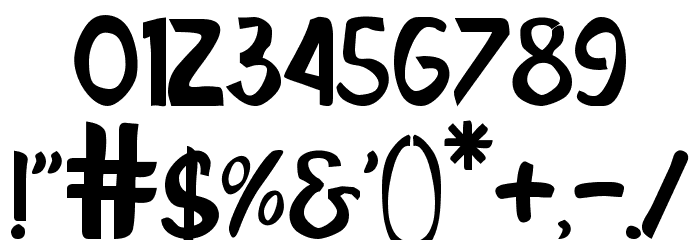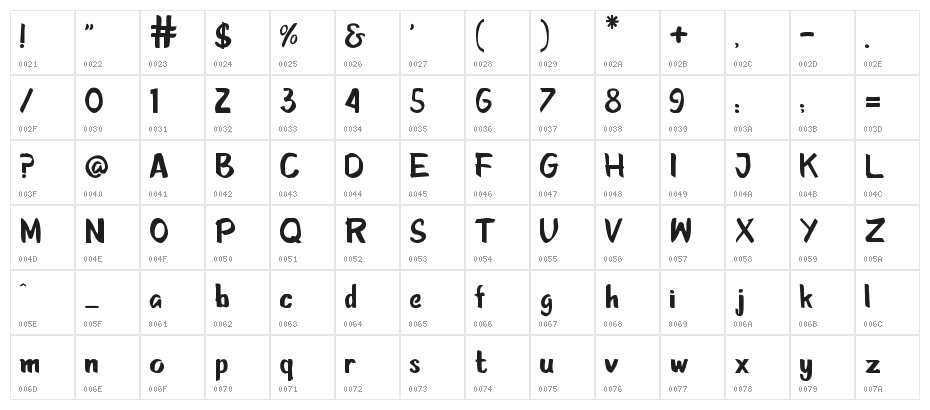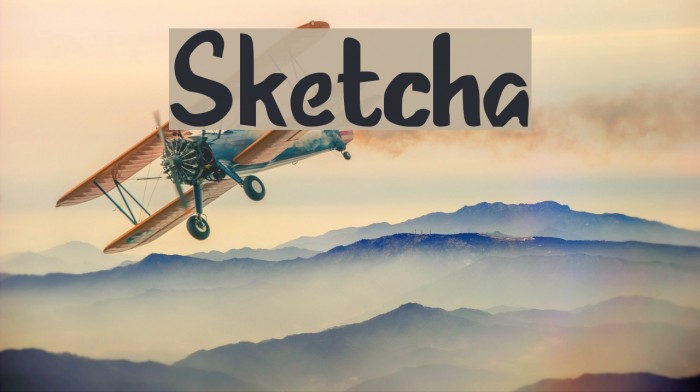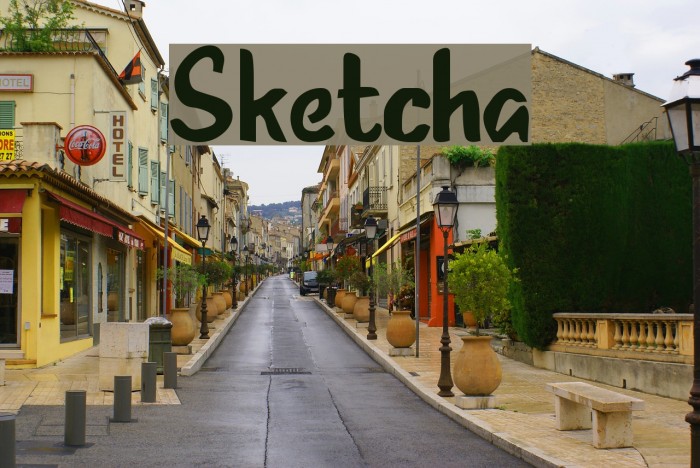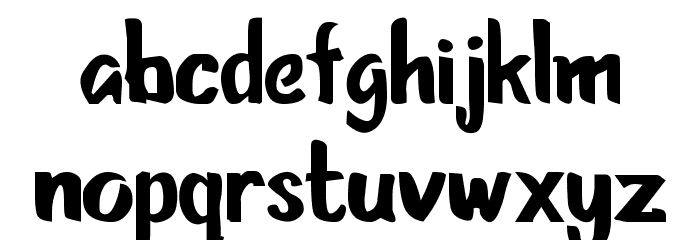
Sketcha Font
Sketcha Description
This font features a playful and hand-drawn aesthetic, characterized by its irregular and slightly whimsical letterforms. The strokes are bold and uneven, giving it a casual and artistic feel. The uppercase and lowercase letters maintain a consistent style, with rounded edges and a slightly exaggerated form that adds to its charm. Numbers and special characters follow the same playful design, making it suitable for creative projects. The overall appearance is informal and friendly, perfect for designs that aim to convey a sense of fun and approachability.
Proposed ProjectsIdeal for children's books, greeting cards, posters, and any project requiring a fun, informal touch.